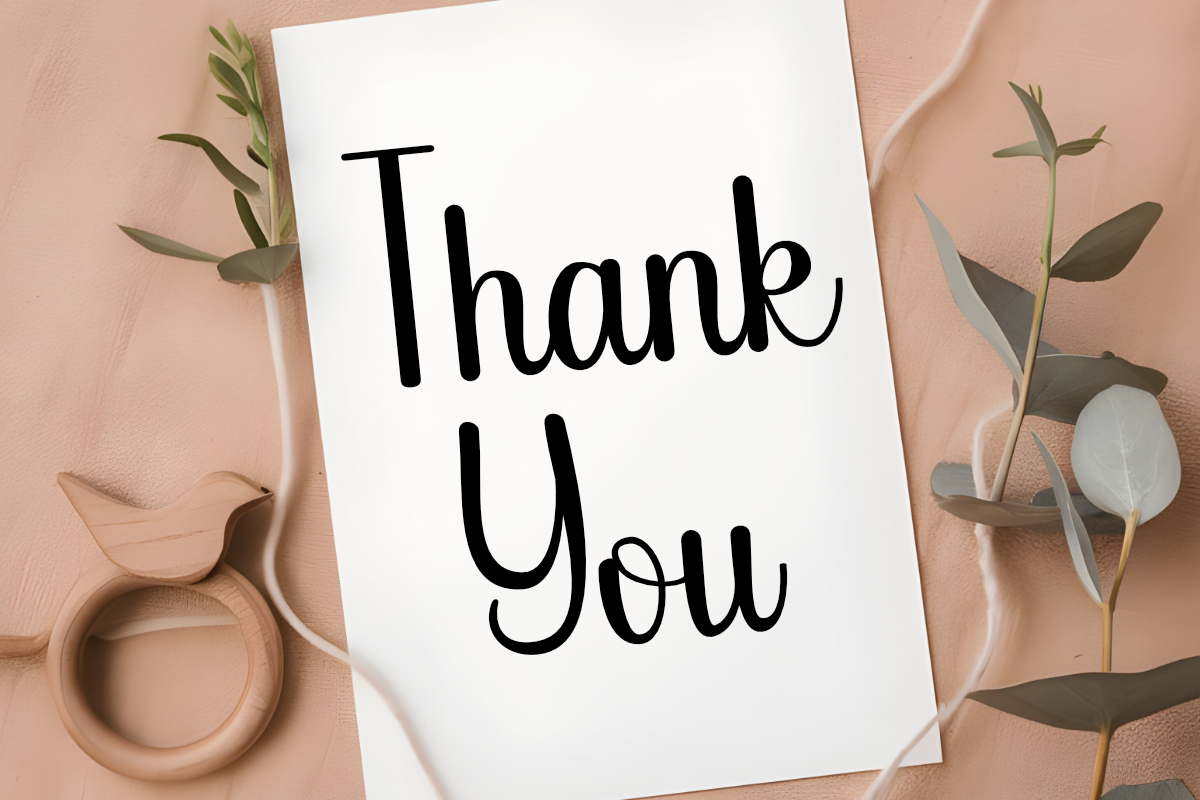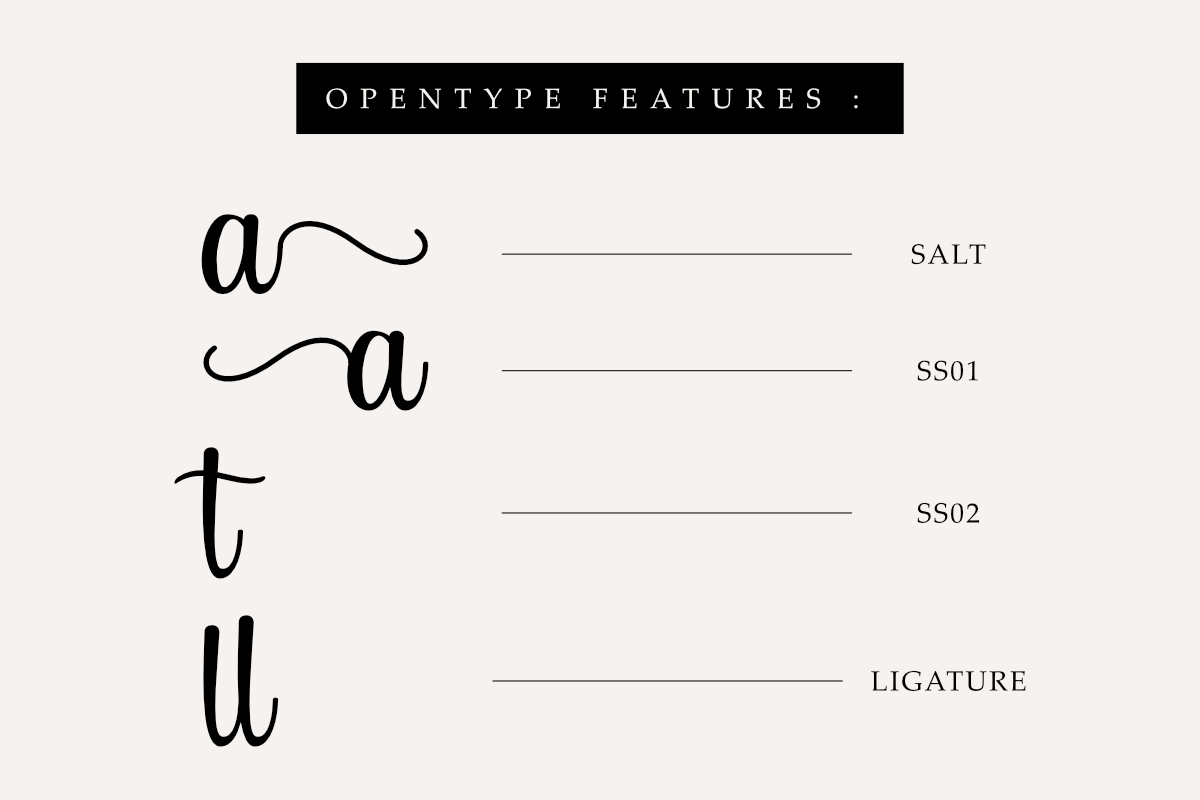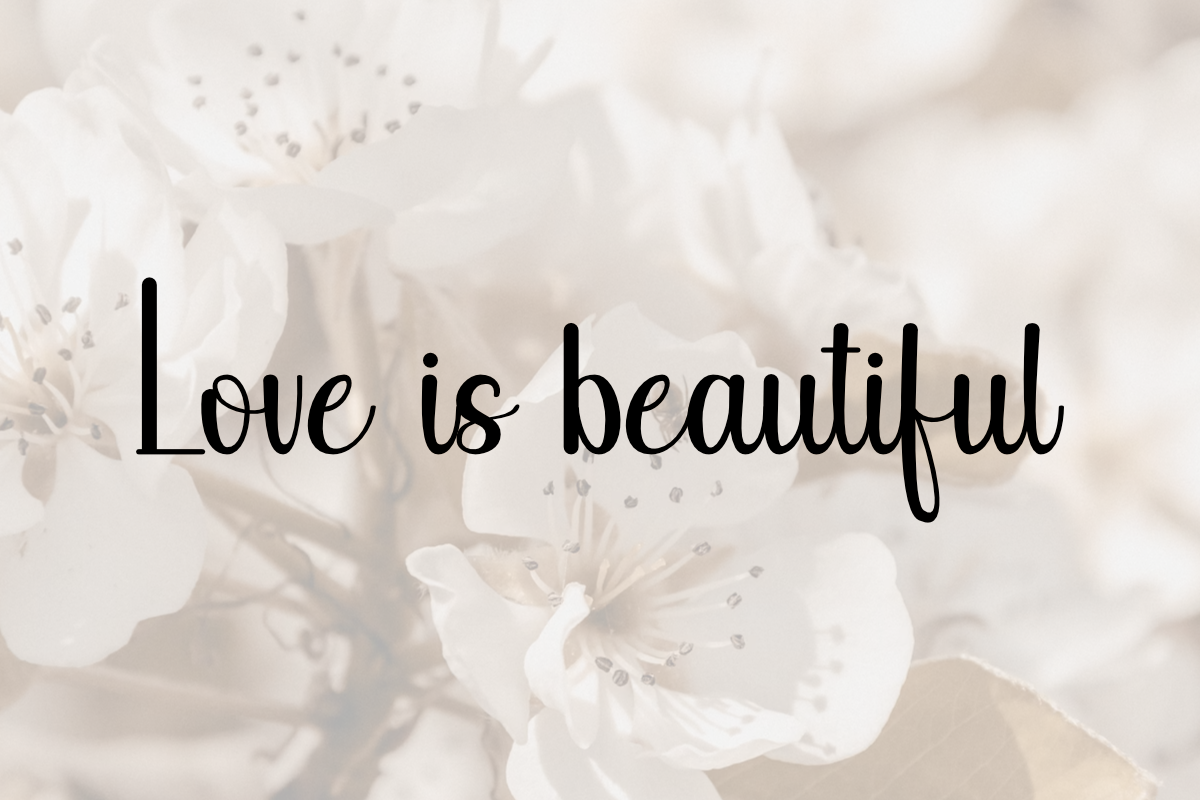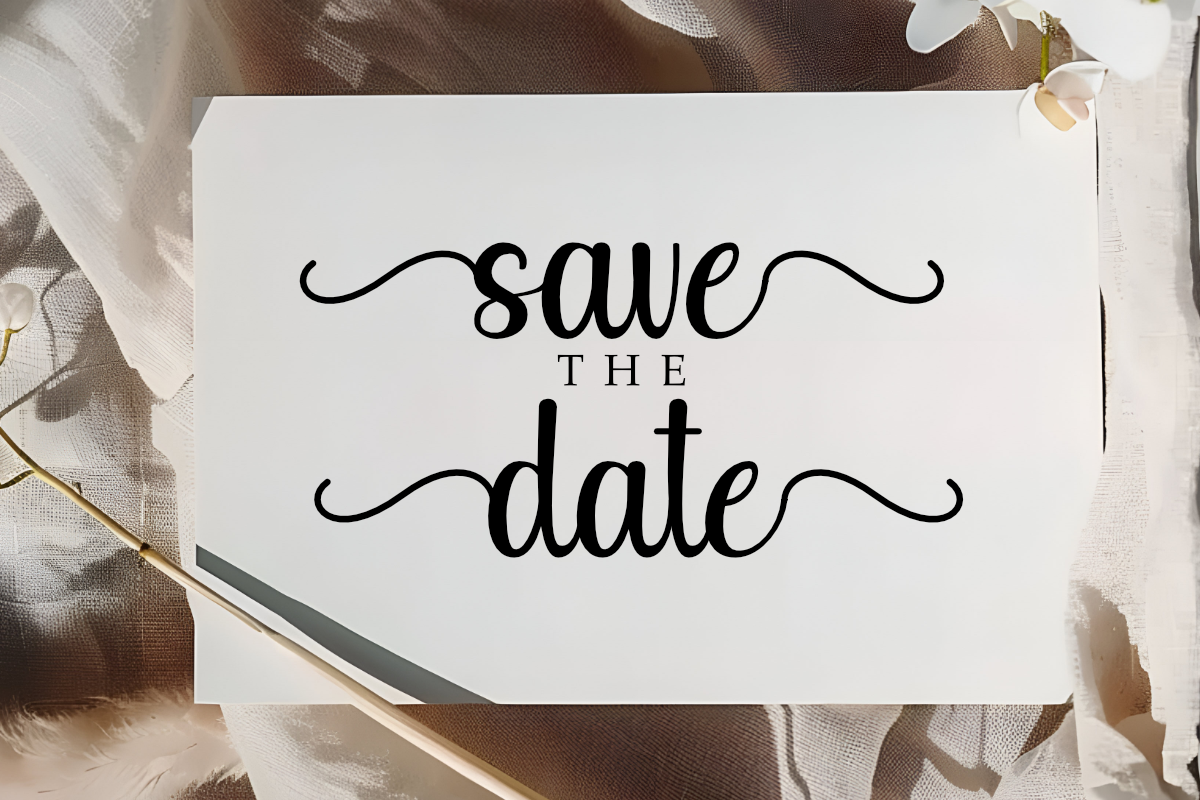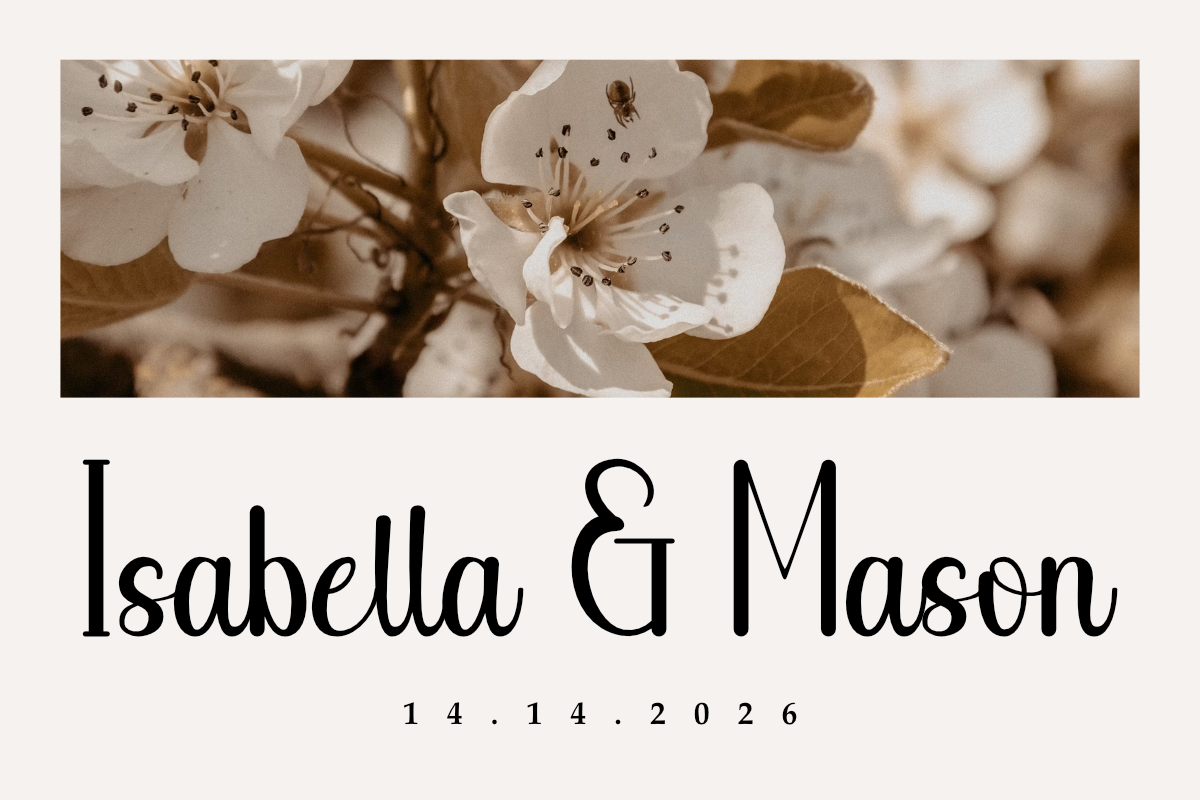
Danilla - Beautiful Handwritten
Danilla is a beautiful handwritten script font with a smooth and elegant flow. Its stylish curves and feminine touch make it perfect for branding, logos, wedding invitations, beauty products, social media, packaging, and more. With a combination of modern calligraphy and classic elegance, Danilla brings sophistication to any design project.